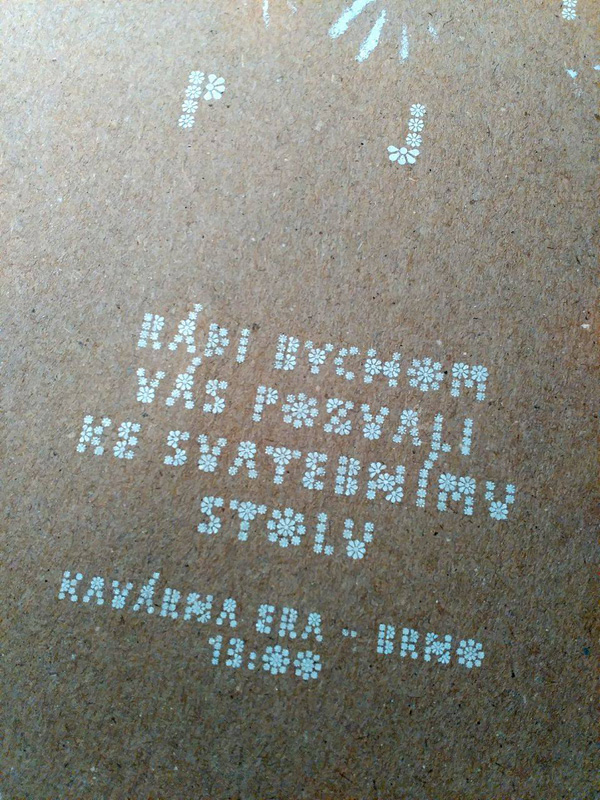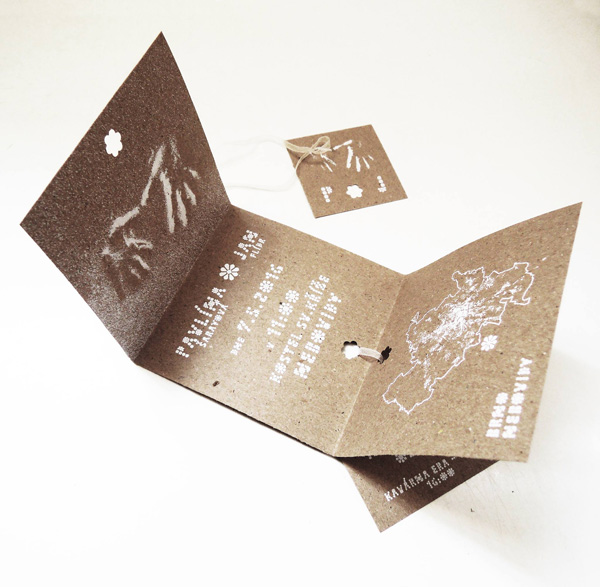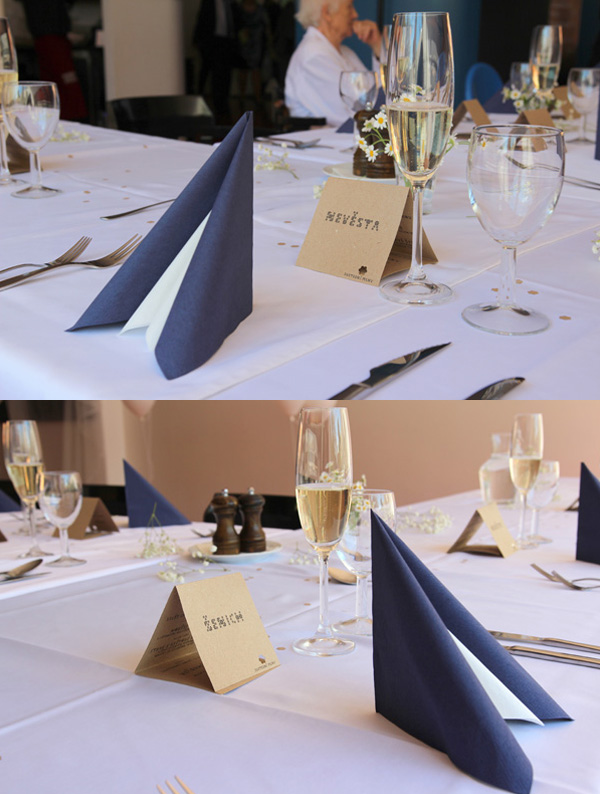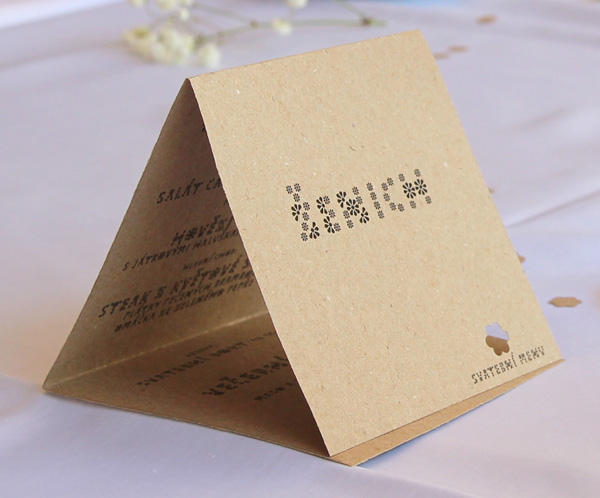
This is gorgeous. 10/10
A bit slow to load, but I love this floral version. Is this the original idea on which the other fonts are based?
yes, this one was the very first!... i intended to make a font made of 4 elements (full-circle, half-circle, quarter-circle and half-size full-circle) which would be somewhat ornamental and such fonts could be stacked over each other... meanwhile "love competition" was announced with its 48 bricks rule, so i started the "28" series to fit (with all the diacritics) into the competition limits... "48" series is a decent compromise between a bit oversize (slow loading) original font and the competition versions... after i will make few more specimens of 48-series i want to experiment with randomly or intentionally choosing few fonts (in different transparent colors) and stacking them over each other
This family has developed into an impressive collection of fonts to combine for beautiful effects.